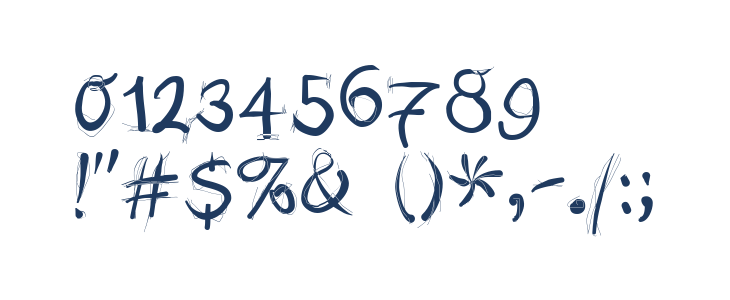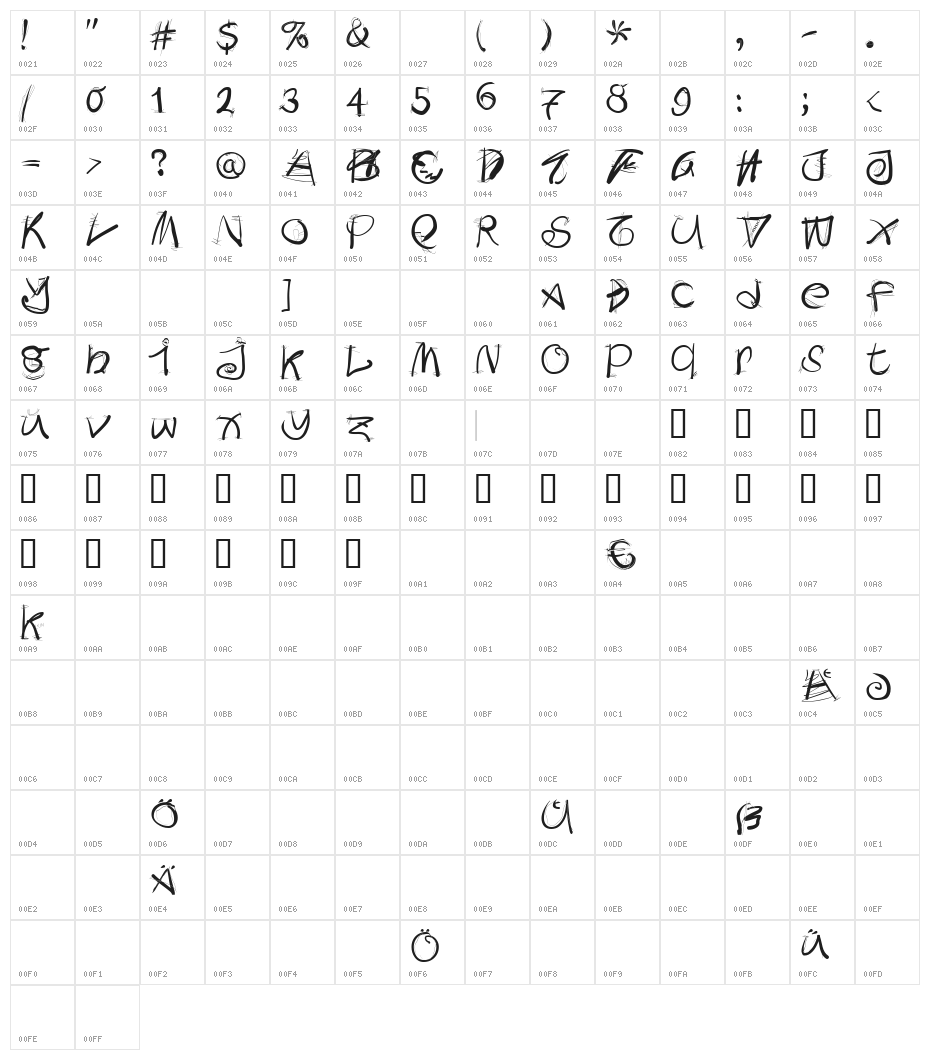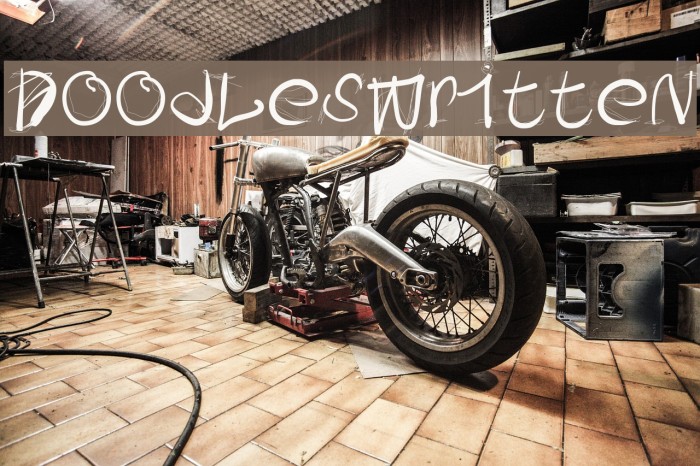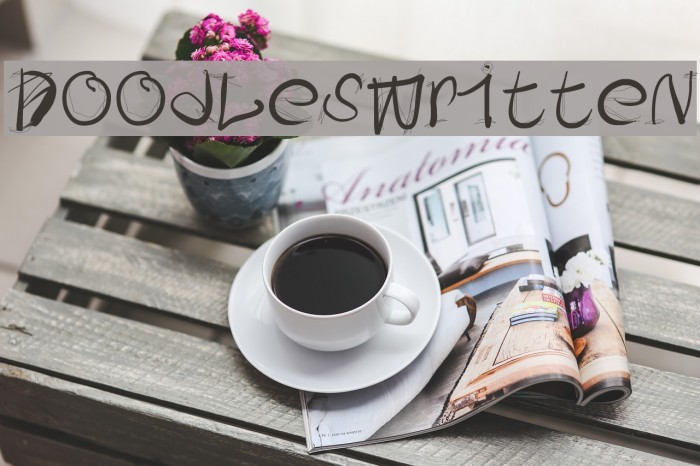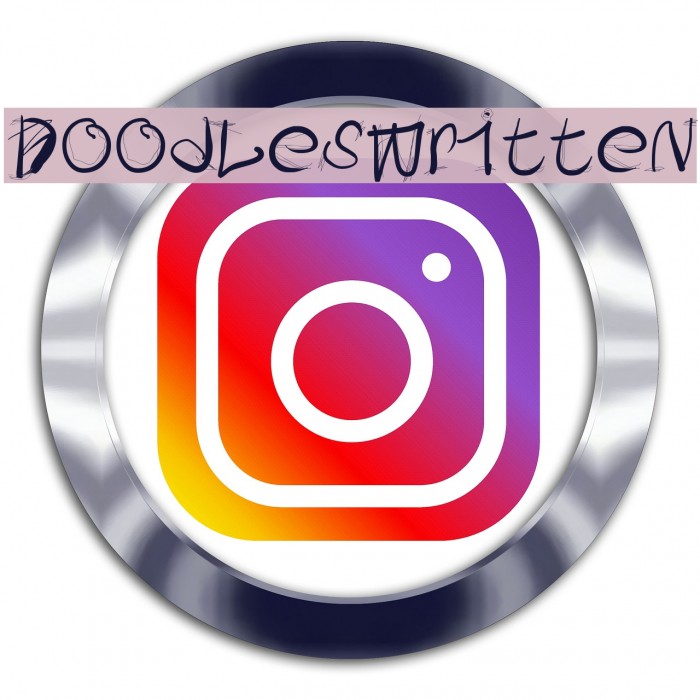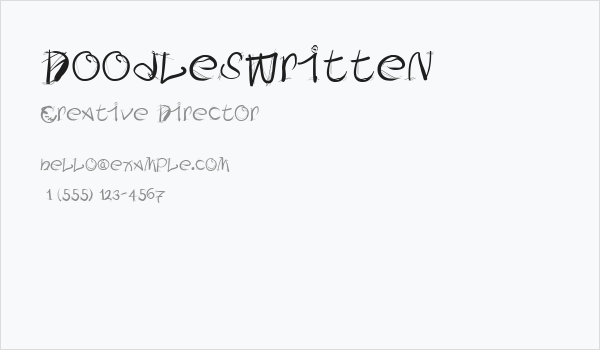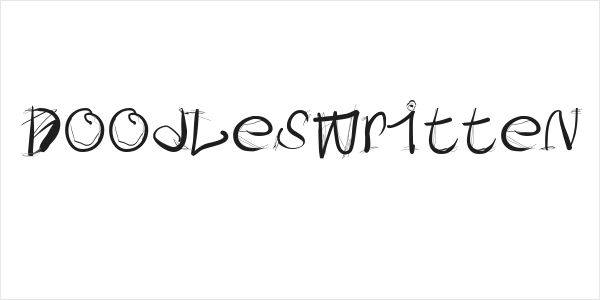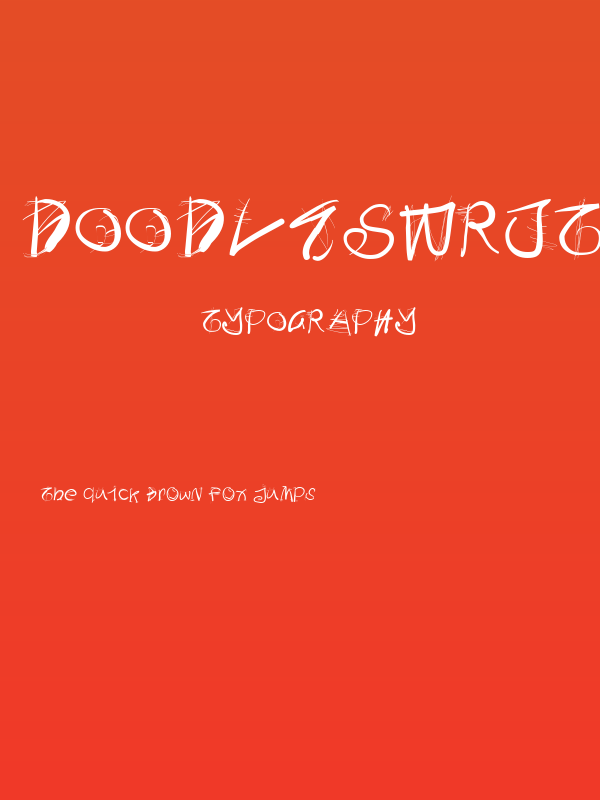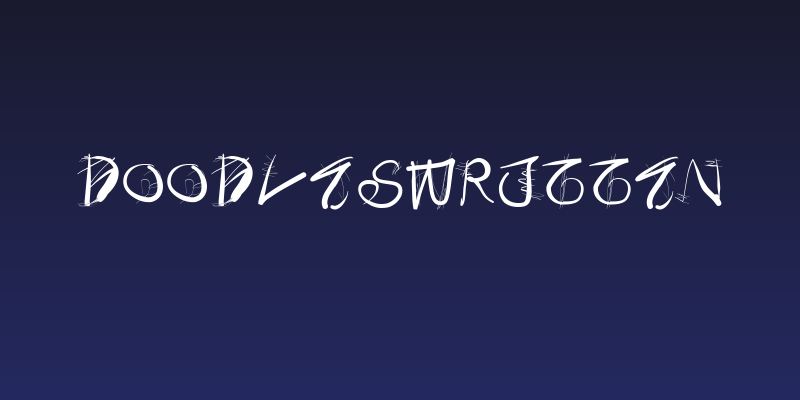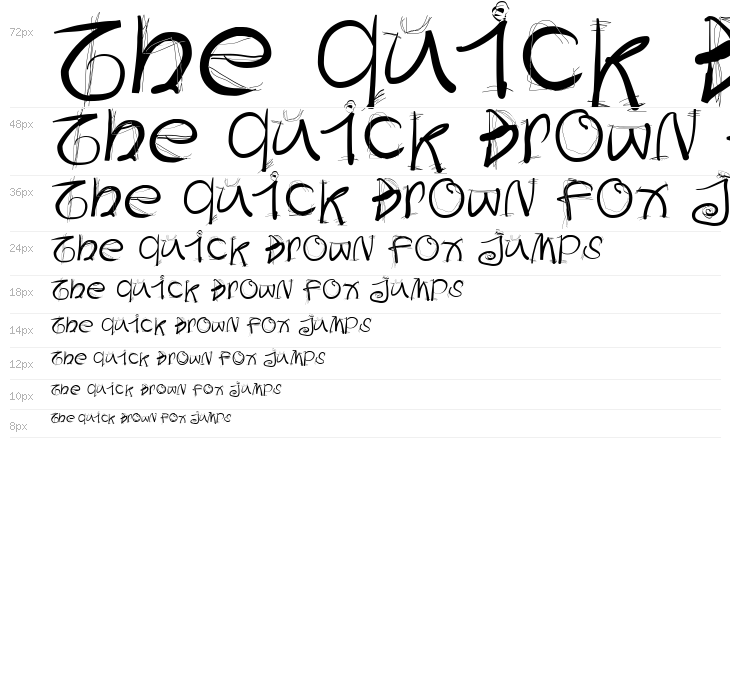
DoodlesWritten Font
DoodlesWritten Description
This font exudes a playful and artistic vibe, characterized by its hand-drawn, sketch-like appearance. Each character is uniquely crafted with uneven strokes and whimsical flourishes, giving it a dynamic and lively feel. The letters have a casual, informal style, with varying line thicknesses that add to its charm. The font's irregularities and spontaneous design make it stand out, perfect for projects that require a touch of creativity and individuality. Its distinctive style is both eye-catching and expressive, making it suitable for artistic and fun applications.
| Proposed Projects | Ideal for creative projects such as children's book covers, playful posters, artistic branding, and unique invitations. |